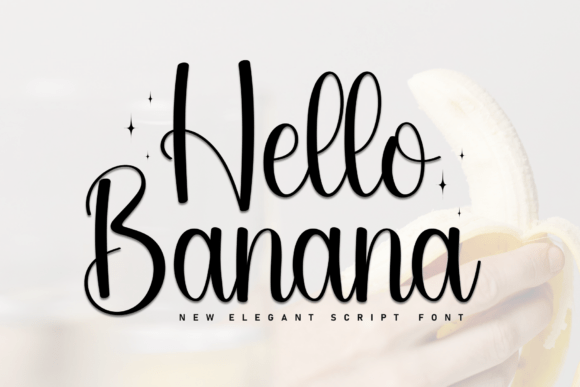
The Perfect Blend of Casual Elegance
Who hasn’t been there – staring blankly at a blank page, trying to find the perfect font to capture the essence of a project? For designers, it’s a constant quest to convey the right message through typography. Sometimes, it’s the simplest moments that spark inspiration – like when you see a handwritten note from a loved one, or a quirky logo that stands out from the crowd.
Enter Hello Banana Font, a beautiful handwritten font that exudes a relaxed, sporty vibe. With its casual elegance, it’s perfect for branding, logos, wedding supplies, and more. Whether you’re looking to create a luxurious feel or a laid-back atmosphere, Hello Banana Font is the perfect choice.
As a designer, you’ll appreciate the versatility and uniqueness of Hello Banana Font. Its natural, handwritten feel makes it stand out from the crowd, while its sporty edge adds a touch of sophistication. Whether you’re working on a fashion campaign, a wedding invitation, or a marketing promotion, Hello Banana Font is sure to elevate your design game.
Hello Banana Font Key Features
- Unique Characteristics: The font features a playful, cursive script with a banana-inspired theme, adding a touch of whimsy to designs.
- Language Support: Hello Banana Font supports a wide range of languages, including Latin, Cyrillic, and Greek scripts.
Hello Banana Font Review
As a designer, I was excited to dive into the world of Hello Banana Font and see what it has to offer. Overall, I was impressed by the font’s unique style and versatility. ✨
One of the things that stands out about Hello Banana Font is its versatility. It comes in a variety of weights and styles, making it easy to use in a range of design applications. From headers to body text, Hello Banana Font adapts well to any layout. ✨
Another feature that I appreciate about Hello Banana Font is its playful, cursive feel. The font is perfect for adding a touch of whimsy to a design, and the irregular strokes add a sense of hand-drawn charm. ✨
While Hello Banana Font has a lot to offer, there are some limitations that designers should be aware of:
- ⚠️ The font may not be suitable for formal or professional applications, as its playful style may not be taken seriously.
- ⚠️ Some users may find the font’s irregular strokes to be distracting or difficult to read, especially in large blocks of text.
In conclusion, Hello Banana Font is a fun and versatile font that is perfect for designers looking to add a playful touch to their work. While it may not be suitable for all applications, it is a great choice for projects that require a creative, whimsical feel. With its wide range of weights and styles, Hello Banana Font is definitely worth considering for your next design project.
Hello Banana Font: A Practical Application Guide
Tips: Use Hello Banana Font for creating playful and whimsical designs. Experiment with different font sizes and colors to add visual interest.
Tips: Use Hello Banana Font for creating custom graphics and illustrations. Combine it with other fonts and design elements to create unique and eye-catching designs.
Tips: Use Hello Banana Font for creating engaging presentations and documents. Use it sparingly to add emphasis and visual interest.
Hello Banana Font is perfect for:
- Creating playful and whimsical designs.
- Adding visual interest to presentations and documents.
- Designing custom graphics and illustrations.